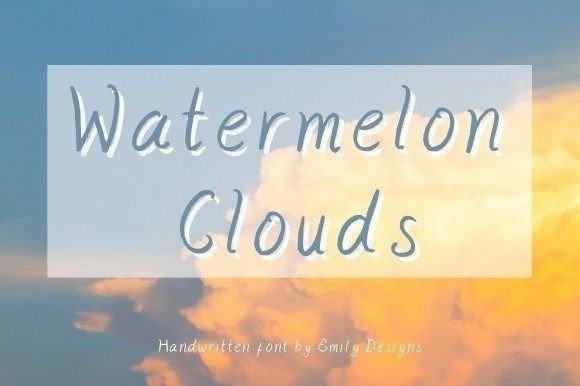
Dive into the vibrant world of Watermelon Clouds, a playful script font that brings a burst of joy and charm to your digital creations. Let your imagination run free as you explore the endless possibilities of this versatile font, meticulously crafted by Emily Designs.
Watermelon Clouds is more than just a font; it's an invitation to express yourself with a touch of whimsy and delight. Its graceful curves and cheerful characters dance across the page, adding a personal touch to everything you write. Whether you're crafting heartfelt journal entries, sending warm greetings, designing party invitations, or creating coloring book pages, Watermelon Clouds is the perfect companion for your creative journey.
Imagine your words taking on a life of their own, flowing effortlessly across the screen or printed page. Watermelon Clouds' charming imperfections add a touch of authenticity to your designs, making them stand out from the crowd. Let your words dance with delight as they find their home in this enchanting font.
With its bubbly personality and endless versatility, Watermelon Clouds is the perfect choice for a wide range of projects. Its playful spirit shines through in personal branding, adding a touch of whimsy to logos, business cards, and social media posts. Its charming curves bring warmth and joy to wedding invitations, save-the-dates, and other special occasion stationery.
But don't just take our word for it. Step into the world of Watermelon Clouds and experience its magic firsthand. Discover how this delightful font can transform your digital creations, adding a unique and captivating touch that's sure to leave a lasting impression.
Join the countless creatives who have embraced the charm of Watermelon Clouds. Let your imagination soar as you create designs that are as unique and vibrant as your personality. Trust us, once you experience the sheer delight of using Watermelon Clouds, you'll wonder how you ever lived without it.